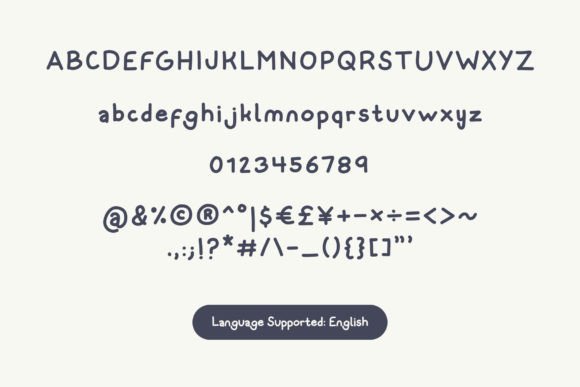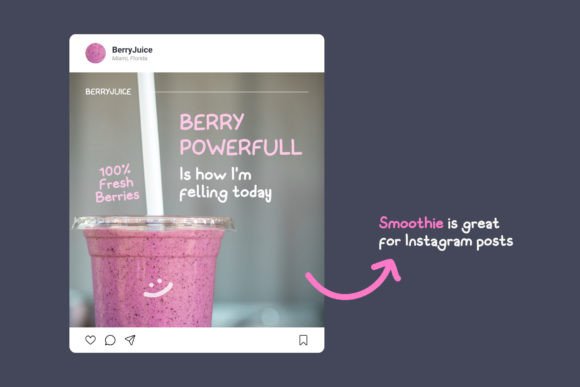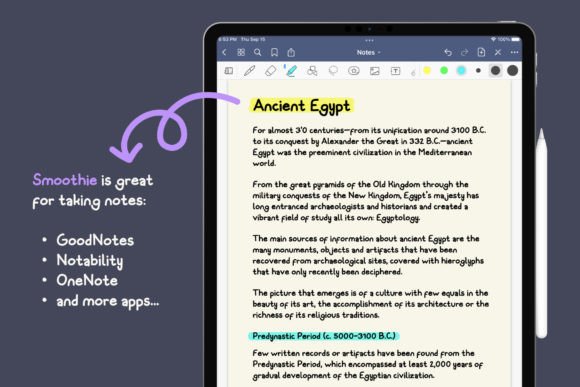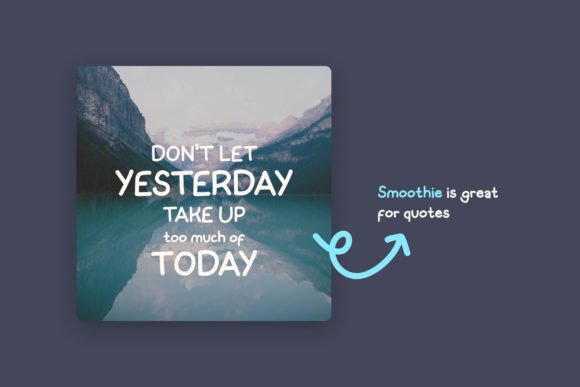
Smoothie Font
About Smoothie Font
“Smoothie” is a delightful handwritten font characterized by its cute lettering and clean lines, making it a perfect choice for a wide range of crafting needs. Whether you’re designing logos, creating branding materials, designing posters, or working on various other projects, “Smoothie” adds a touch of charm and versatility to your work.
The appeal of “Smoothie” lies in its friendly and approachable lettering. Its clean lines and cute aesthetic create an inviting and engaging visual experience, making it suitable for projects that aim to capture attention and convey a sense of friendliness.
This font’s versatility allows it to excel in various applications. Whether you’re crafting a memorable logo, developing a cohesive brand identity, designing eye-catching posters, or working on a range of creative projects, “Smoothie” adapts smoothly to your needs.
The cute and clean lettering of “Smoothie” can be a valuable addition to your crafting toolkit, whether you’re a professional designer or someone who enjoys creative endeavors.
In summary, “Smoothie” is a charming handwritten font that brings a sense of friendliness and versatility to your projects. Its cute lettering and clean lines make it an ideal choice for a variety of crafting needs, allowing you to add a touch of charm to your logos, branding materials, posters, and more. Embrace the inviting nature of “Smoothie” and watch your creativity flourish.